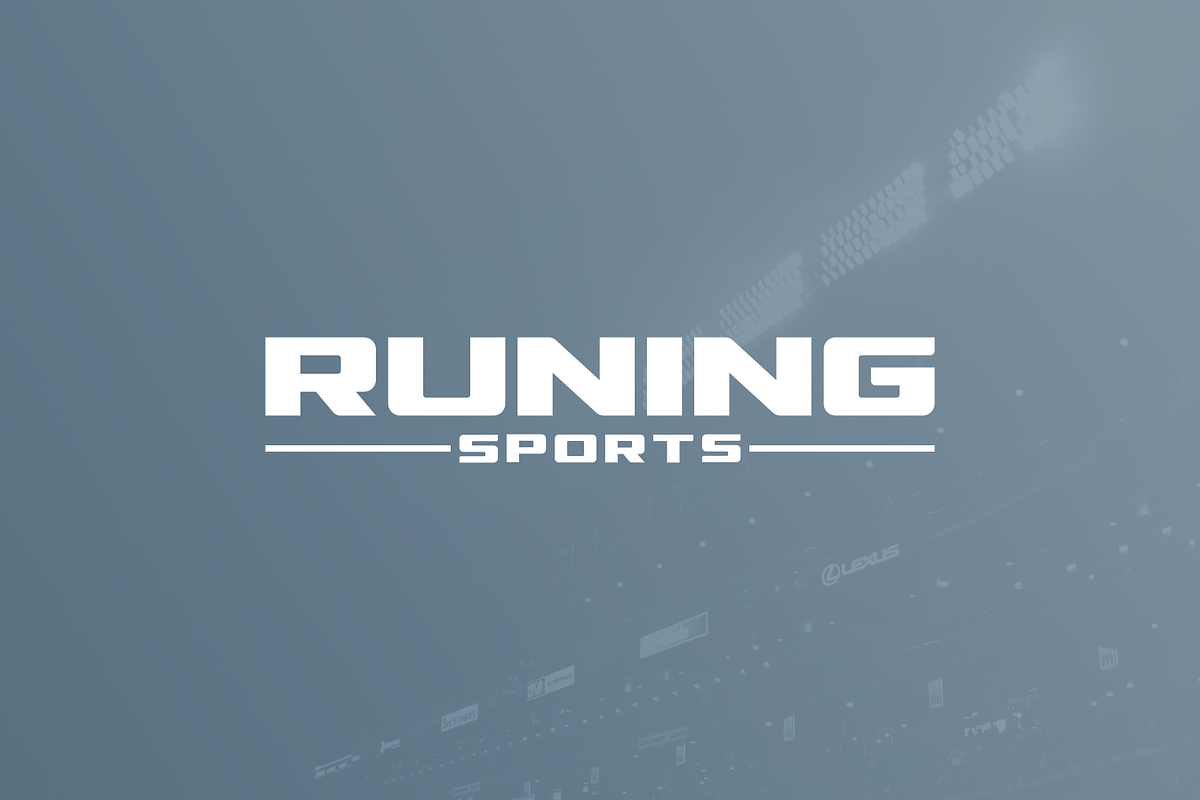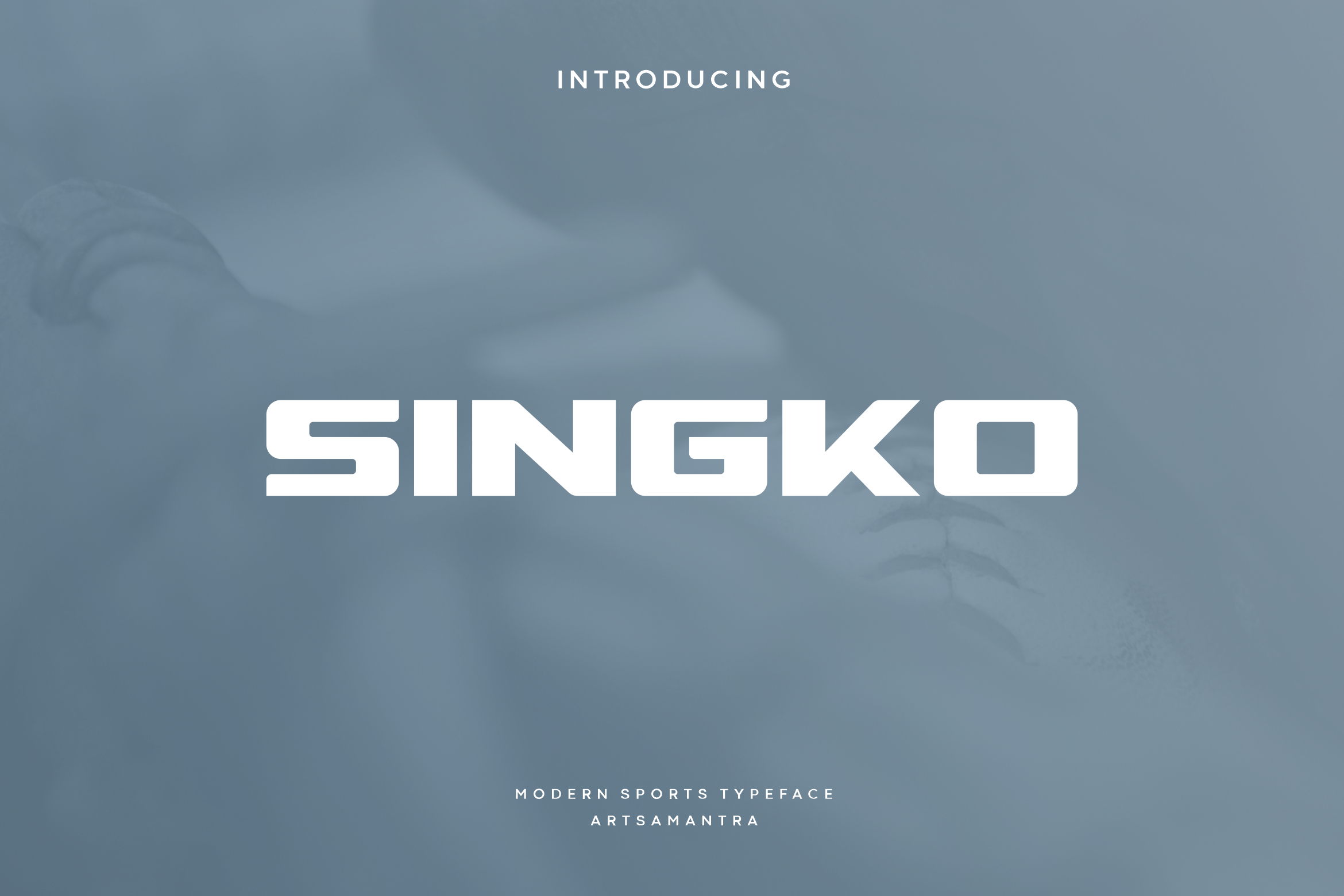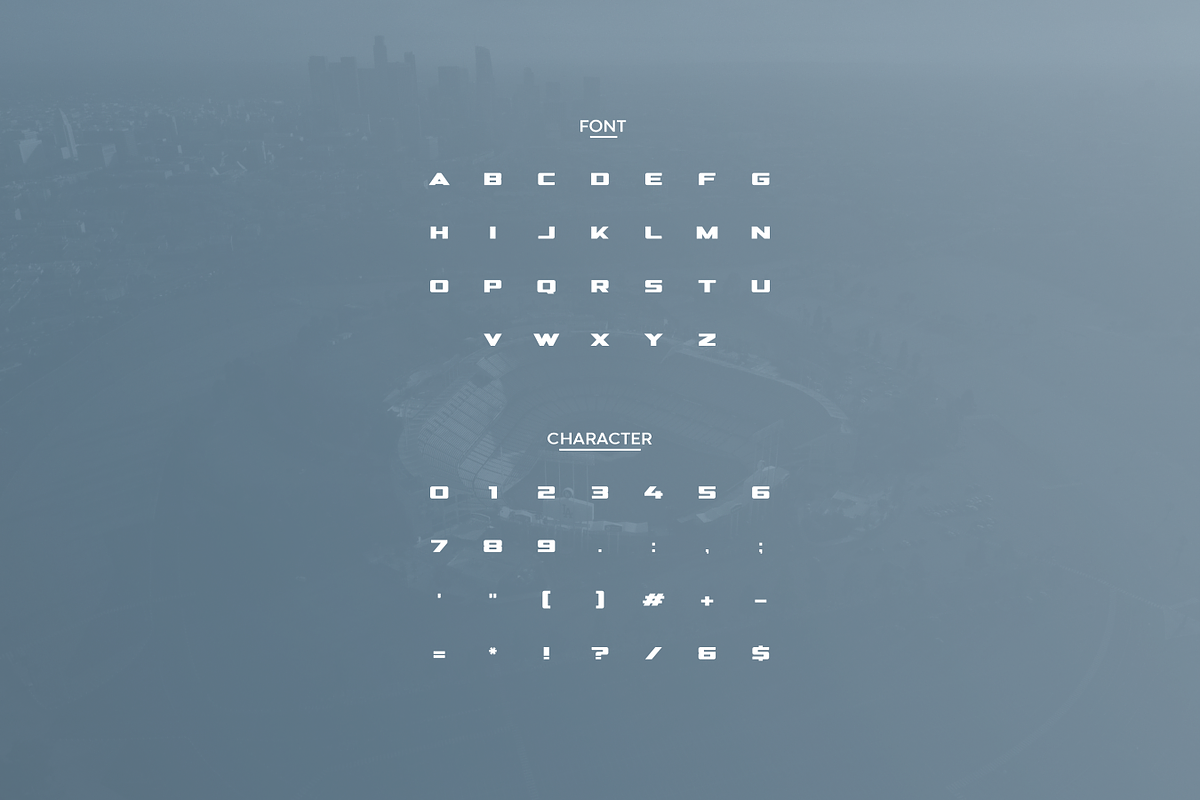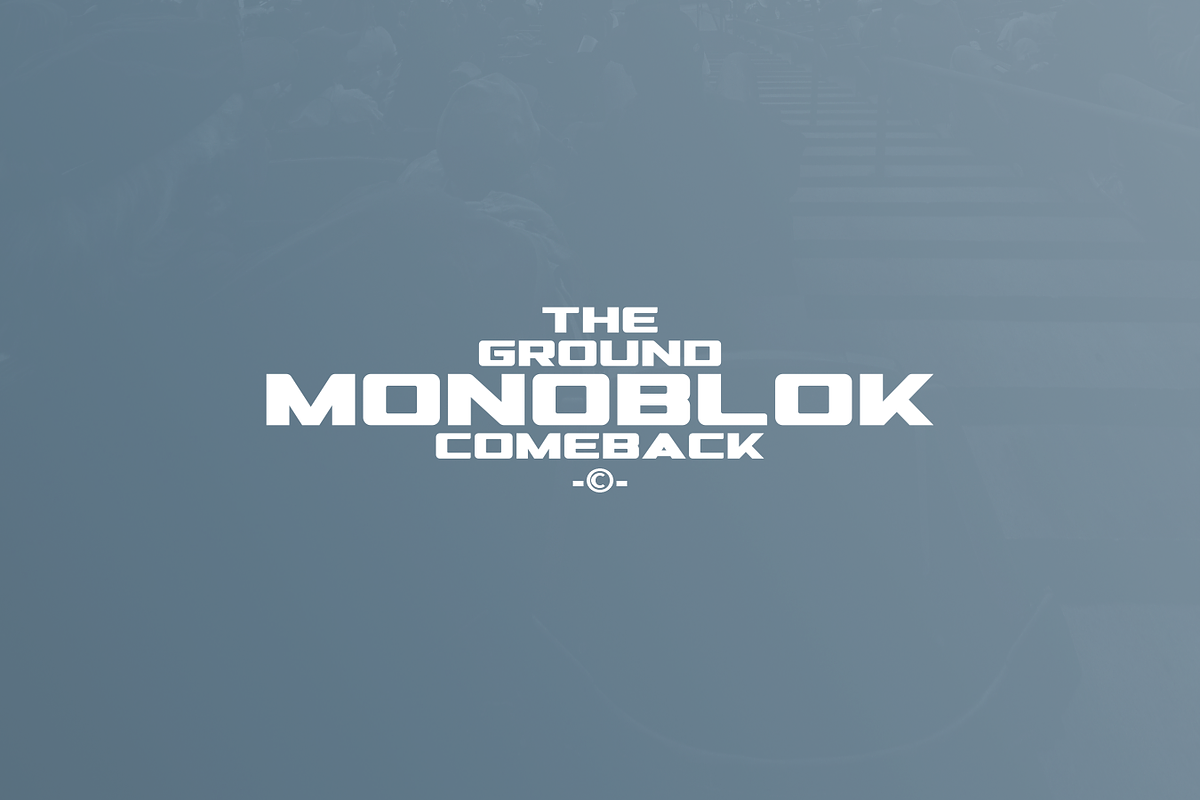
Singko - Modern Sports Typeface
Singko is a decorative serif typeface with a sci-fi and sport theme, modern and minimalist style. This typeface is only available in all caps, the sturdy shape and modern look make it look very strong. This type of font would be great for branding or logos, besides it would be suitable for use in headlines, signatures and titles.